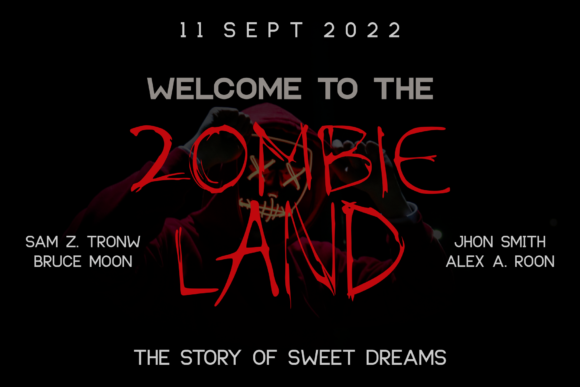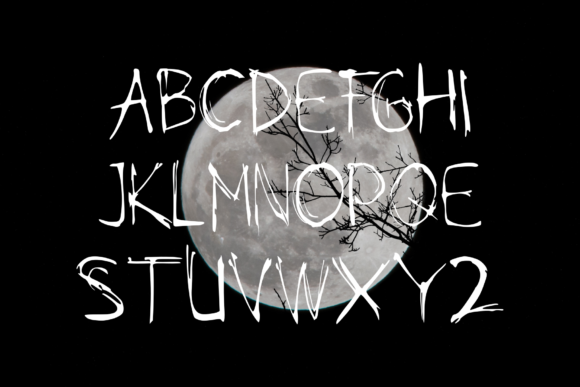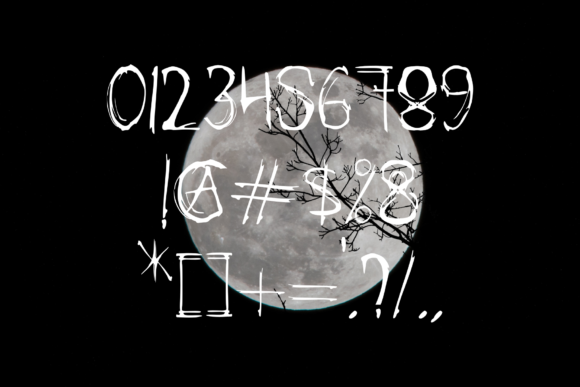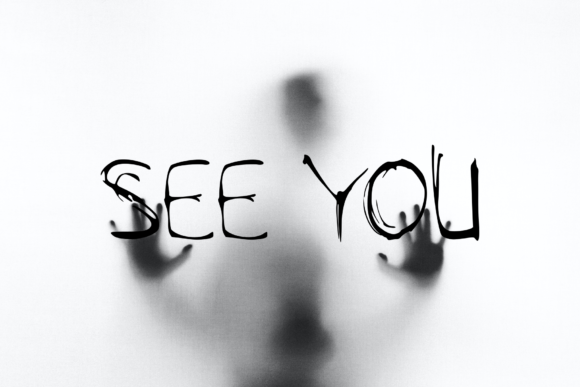
Introduction to Modaz Font
The Modaz is a classic horror font.
It has a scratched style which makes it perfect for adding a scary look to your designs .
Key Features of Modaz Font
Why Choose Modaz Font?
Modaz Font offers exceptional quality and versatility, making it a valuable addition to your design toolkit. Whether you’re creating for personal projects or commercial use, Modaz Font delivers professional results.